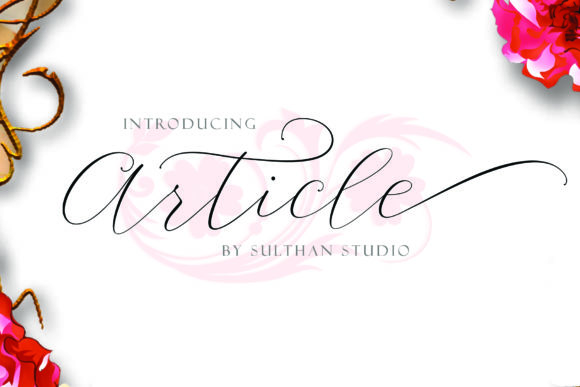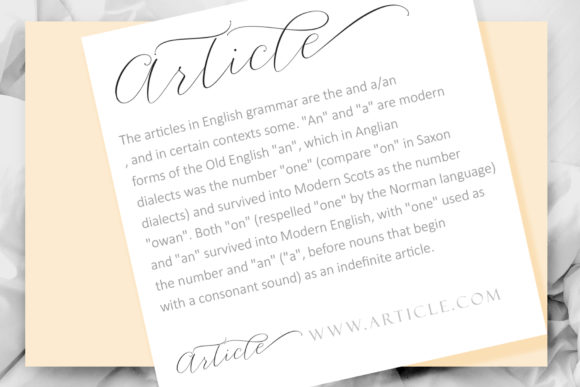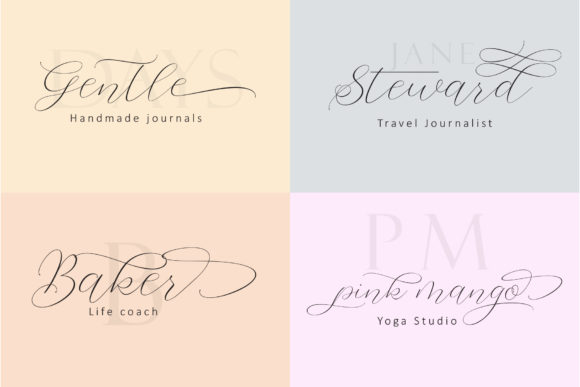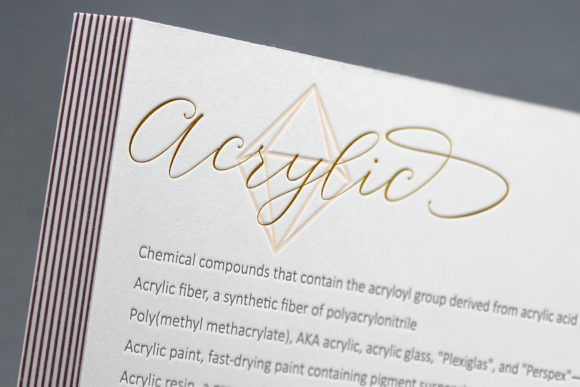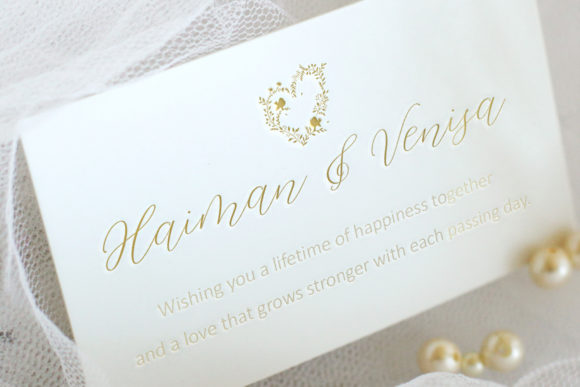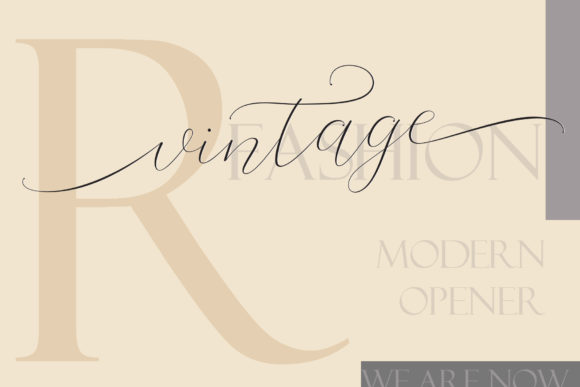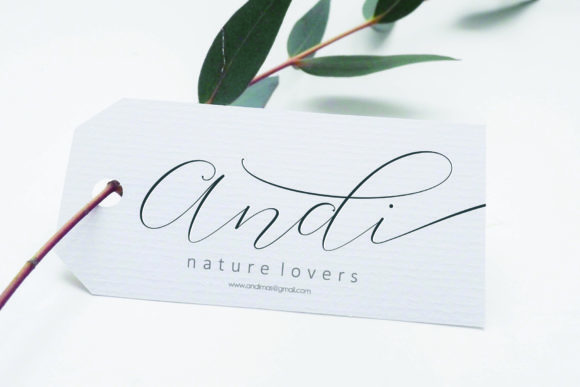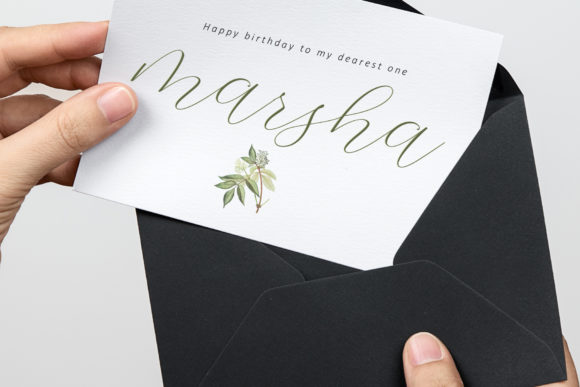
HomeScript FontsArticle Script Font Script Fonts Article Script Font FacebookXPinterestWhatsApp Article Script Font Poster 2 Article Script Font Poster 3 Article Script Font Poster 4 Article Script Font Poster 5 Article Script Font Poster 6 Article Script Font Poster 7 Article Script Font Poster 8 Article Script Font Poster 9 Article Script Font Poster 10 About Article Script Font Article is a modern and romantic script that combines beauty and elegance. Get inspired by its unique style! DOWNLOAD ON CREATIVE FABRICAThis font is sold and delivered by Creative Fabrica. Font Canyon may earn a commission if you buy through this link. People also explored Smilecake Cute Font Barbary Coast Justify Font Sherbet Wave Font Supper Cute Font The Signature Font T-Shirt Mockup Volume 26 Bunny Carrot Font The Zackly Font 365 0 TagsArticle Script Font Previous articleHey Keysha FontNext articleBright Beauty Font LEAVE A REPLY Cancel reply Comment: Please enter your comment! Name:* Please enter your name here Email:* You have entered an incorrect email address! Please enter your email address here Website: Save my name, email, and website in this browser for the next time I comment. Personal Use Free Angola Beach Personal Use Free Read more about this font Hello Sister Personal Use Free Read more about this font Beautiful Personal Use Free Read more about this font Vembazax Rm Personal Use Free Read more about this font BLOG Modern Sans-Serif Fonts That Brands Love in 2025 In 2025, modern sans-serif fonts remain a top choice for brands looking to project clarity, professionalism, and... Free Fonts Risk: Why Free Fonts Can Be Dangerous for Designers Using Fonts in Digital Marketing: Tips to Strengthen Your Brand Identity Exploring Font Trends